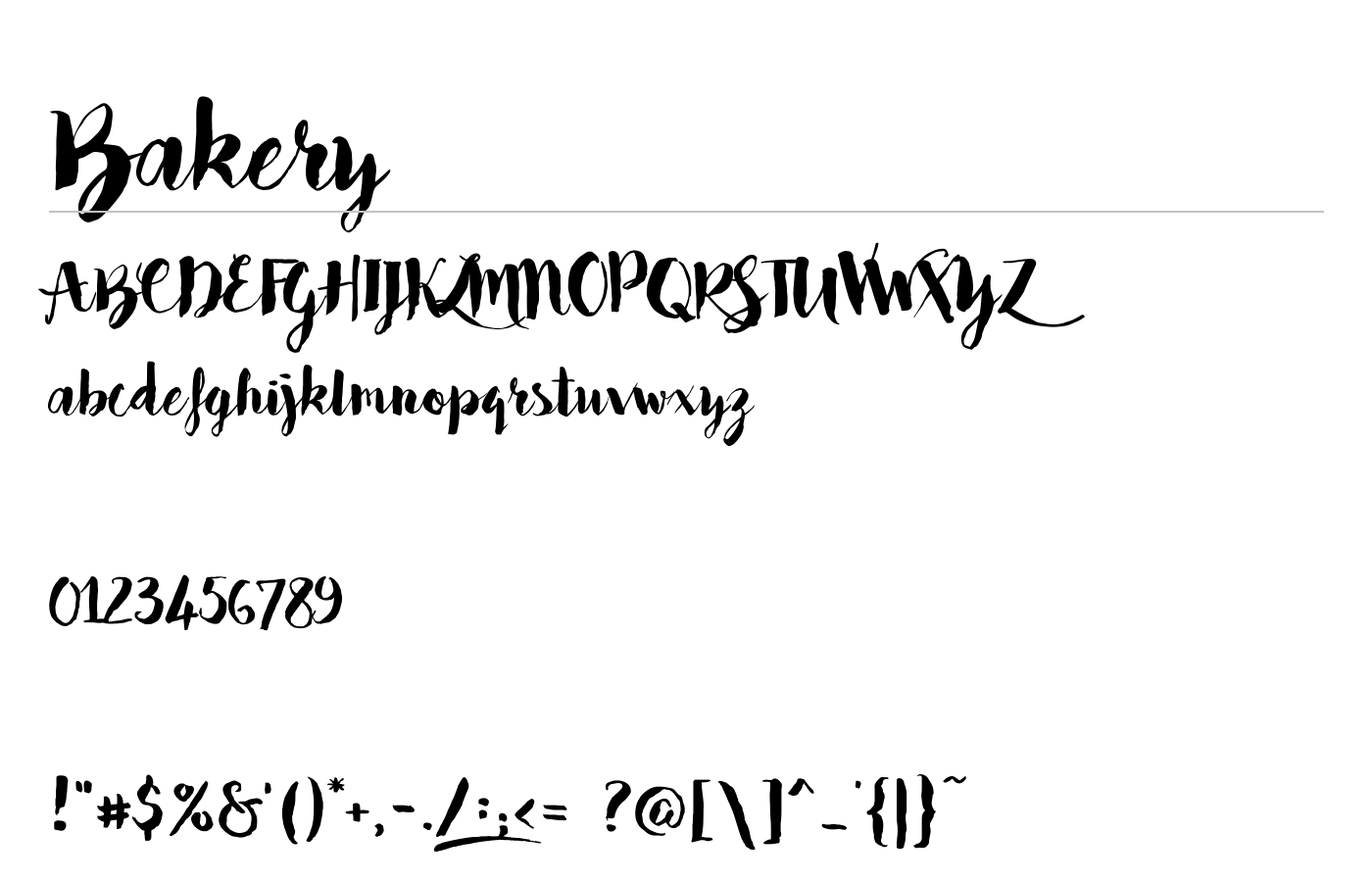
Bakery Font is a lively, hand-lettered script typeface with a bold and playful personality, featuring dynamic brush strokes and varying thickness that give it a handcrafted and artistic feel. Its informal style and varied letterforms make it ideal for creative branding, packaging, and invitations, where a warm, personal touch is desired. This font shines in headline and logo use, bringing a unique and friendly charm to designs.
Bakery Font
About Bakery Font
| Font family | Bakery Font |
| Designer | Clement Nicolle |